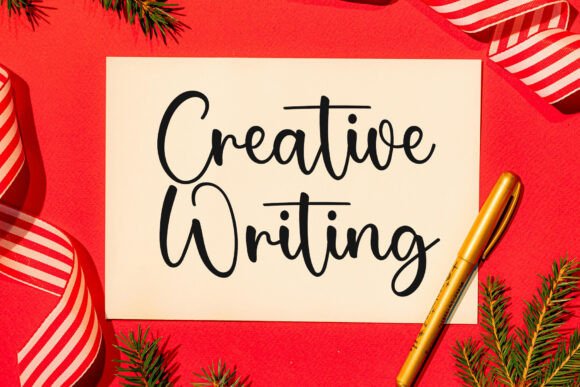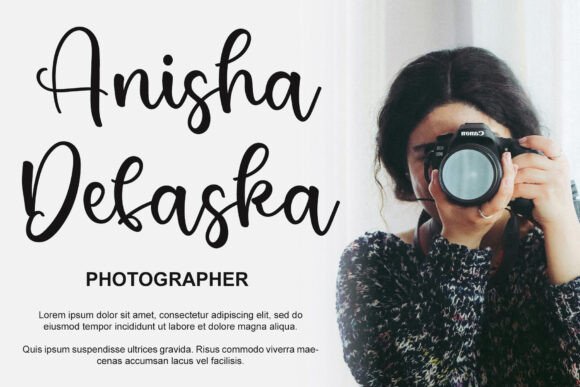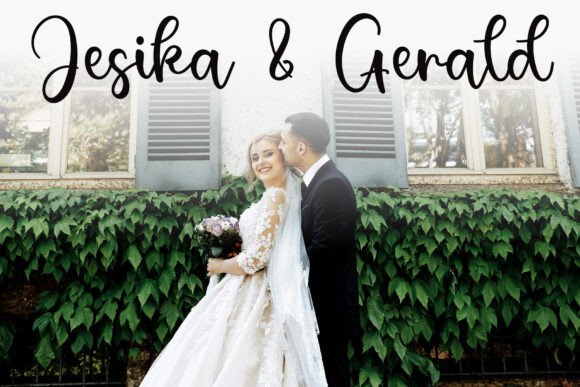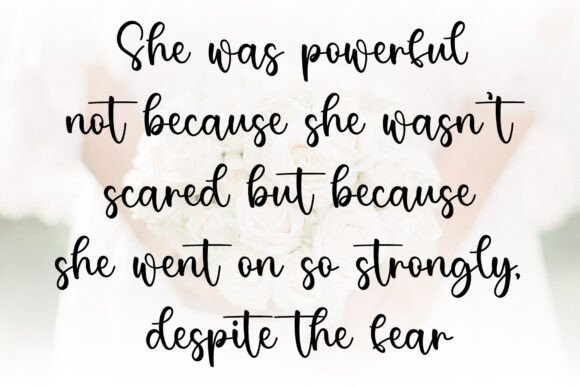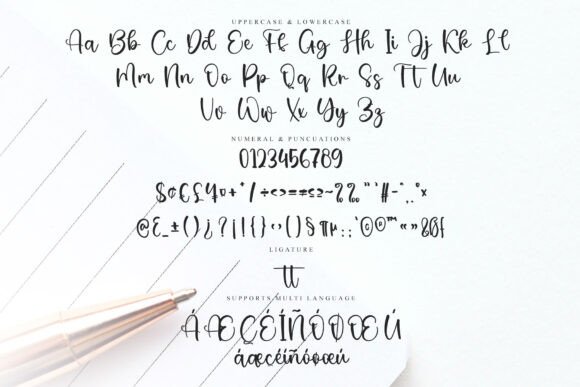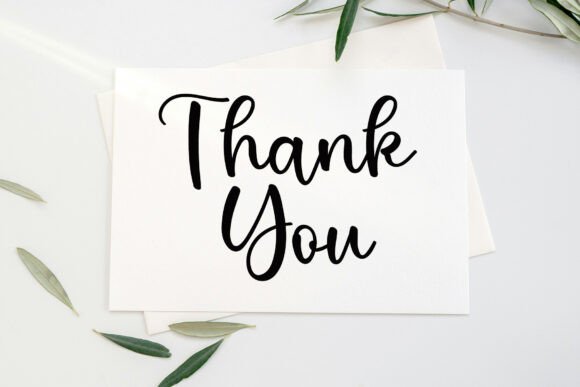
Introduction to Shopie Signature Font Font
Fonts play a crucial role in design, and the Shopie Signature Font font is a typeface that brings both character and versatility to any project. Whether you’re working on a branding project, a website, or a print design, the Shopie Signature Font font offers a unique style that can elevate your work.
Shopie Signature is a delicate, elegant, and flowing handwritten font perfect for your favorite projects.
Fall in love with its incredibly distinct and timeless style, and use it to create spectacular designs This font is PUA encoded, which means you can access all of the glyphs and swashes with ease.
Key Features of Shopie Signature Font Font
Why Choose Shopie Signature Font Font?
The Shopie Signature Font font is more than just a typeface – it’s a design tool that helps you communicate your message with style and clarity. Its unique character set and versatile design make it suitable for a wide range of applications, from elegant invitations to bold headlines.
With its carefully crafted letterforms and balanced proportions, the Shopie Signature Font font ensures readability and visual appeal across all mediums.
What makes Shopie Signature Font font special?
The Shopie Signature Font font stands out with its unique design, exceptional readability, and versatility across various design applications.